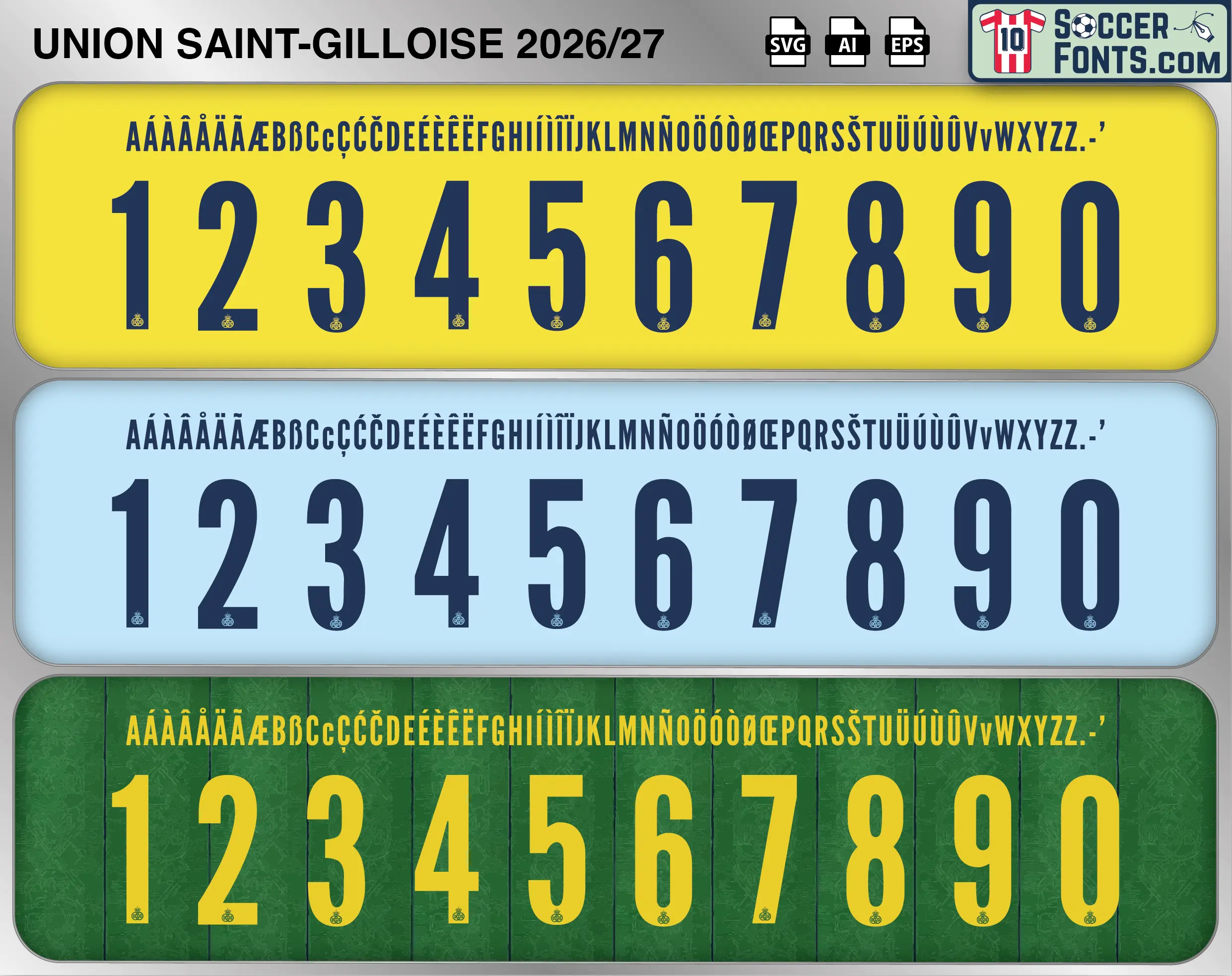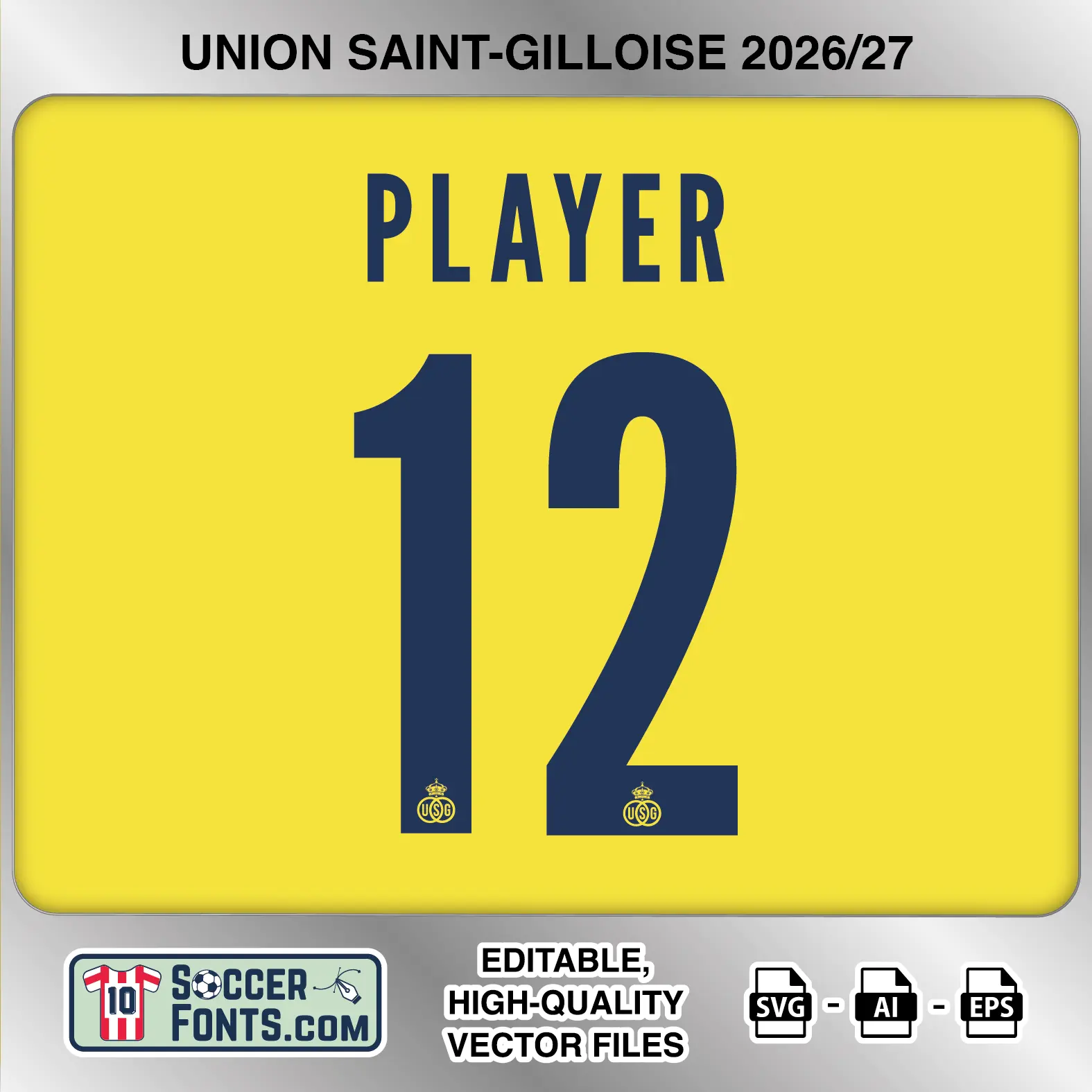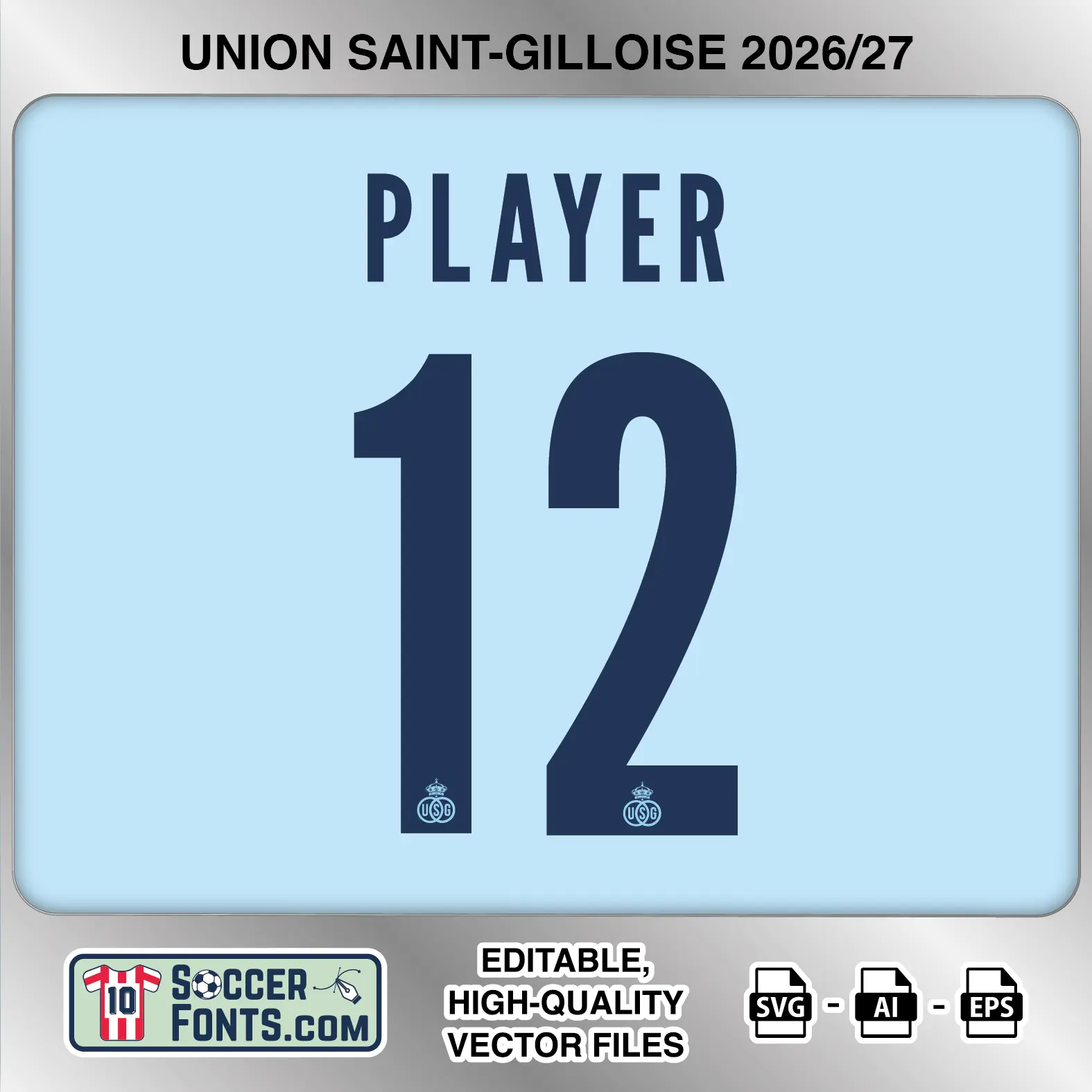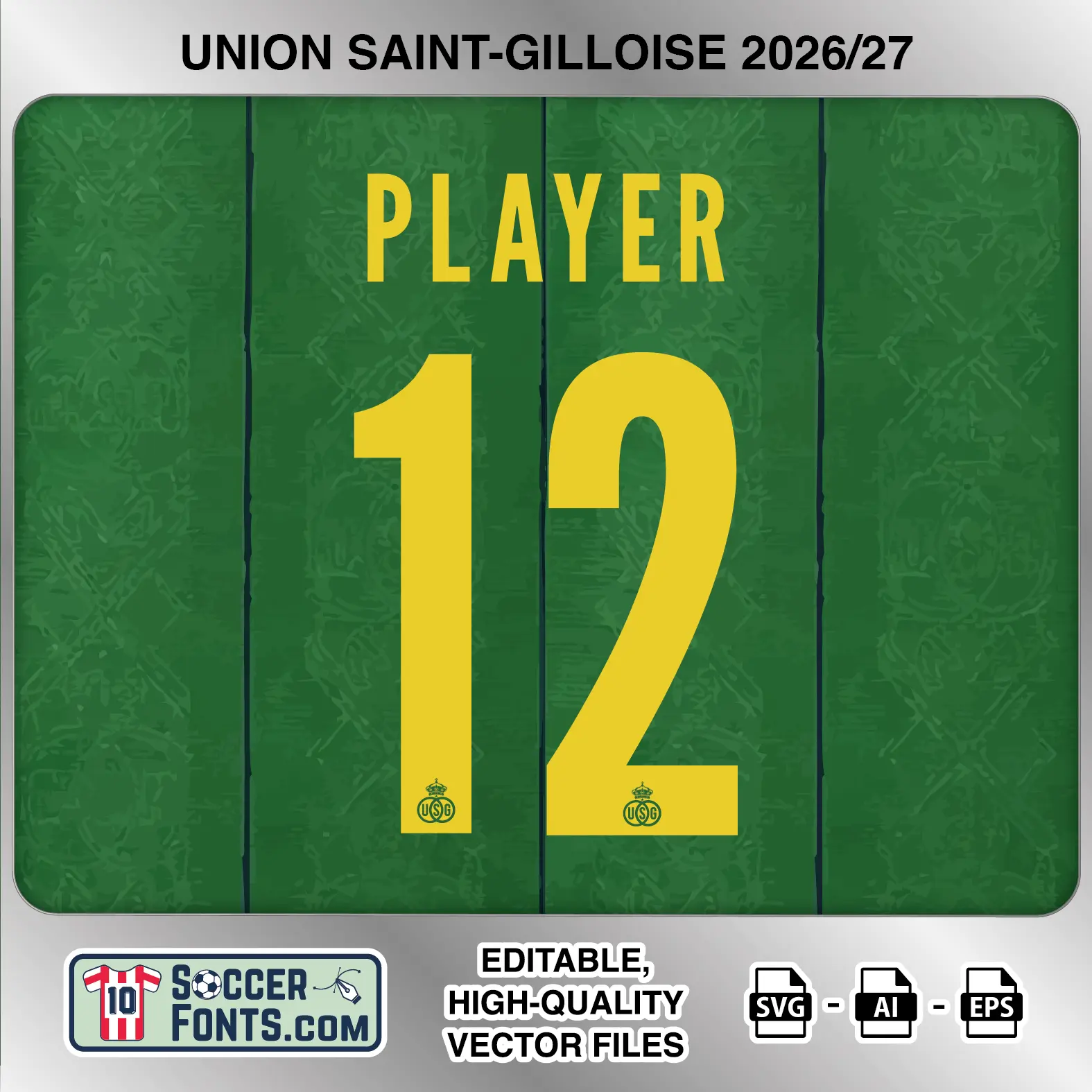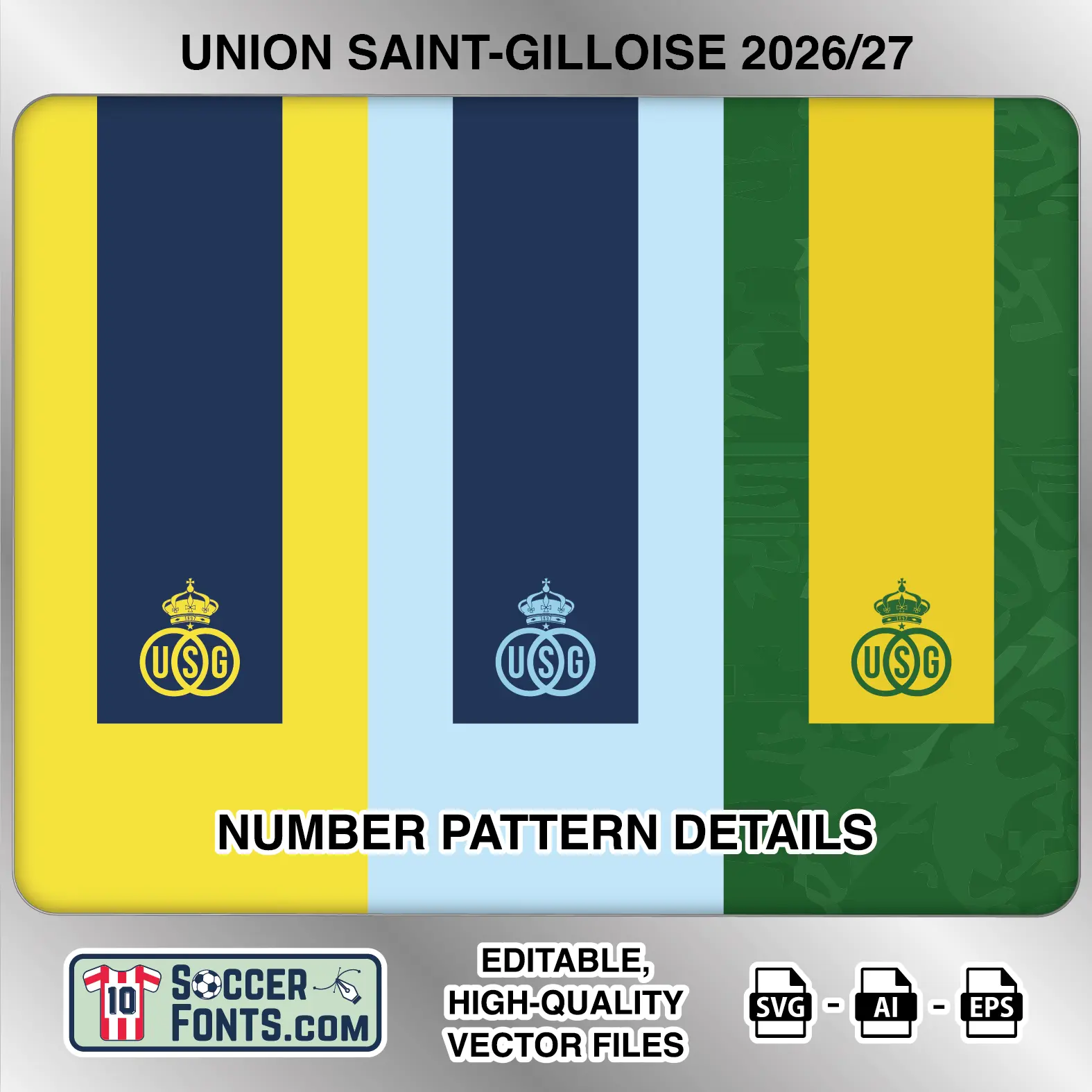
About Union SG 2026-27 Font
Download Union SG 2026-27 font, an editable soccer jersey lettering design in vector format inspired by the Union Saint-Gilloise home, away and third kit styles used during the 2026-27 football season. This football font artwork is prepared for football shirt recreations, custom jersey projects, football kit mockups and sports graphic design workflows.
Visual Identity of the Font Design :
The Union Saint-Gilloise 2026-27 lettering uses a tall, condensed uppercase alphabet paired with substantially heavier and wider shirt numbers. The name lettering has narrow proportions, clean vertical strokes and restrained curves, while the numerals use a bold sans-serif construction with a mixture of straight sections and smooth rounded transitions. The 1 has a curved upper shoulder leading into a straight vertical stem, while the 2 uses a large rounded upper section that flows diagonally into a flat base. Figures such as 3, 6, 8, 9 and 0 continue the rounded visual language with narrow internal spaces. A small crowned USG crest appears at the bottom of every numeral.
The home treatment shown in the first section of the complete set uses dark navy lettering and numbers against a bright yellow background, with the crest reproduced in yellow near the base of each number. The away treatment uses the same dark navy typography on a pale light-blue background, accompanied by a light-blue USG crest. The third treatment reverses the palette more dramatically, using bright yellow names and numbers against a textured green shirt background, with a dark green crest positioned at the bottom of the numerals. The extended alphabet also includes numerous accented uppercase characters for international player names.
Context of 2026-27 Season for Union Saint-Gilloise :
Union Saint-Gilloise entered the 2026-27 campaign after another successful period at the top end of Belgian football. The Union Saint-Gilloise 2026-27 Font belongs to a season that began with silverware, as Union defeated Club Brugge on penalties in the Belgian Super Cup before turning its attention to the Jupiler Pro League and European competition.
The club began its league schedule away to Westerlo before returning to the Joseph Marien Stadium, with the Brussels derby against Anderlecht forming one of the early highlights. Captain Kevin Mac Allister remained an important figure in the squad and extended his long-term commitment to the club during August.
After facing Bodø/Glimt in Champions League qualifying, Union moved into the UEFA Europa League league phase, where opponents include Real Sociedad, Celtic, Lyon, Celta Vigo and Beşiktaş. The Union Saint-Gilloise 2026-27 Font therefore represents lettering used across a campaign combining Belgian competition with another European adventure.
For football shirt collectors and kit design projects, the Union Saint-Gilloise 2026-27 Font brings the home, away and third lettering treatments together in one package, covering the three distinct color combinations associated with the club’s 2026-27 kit collection.